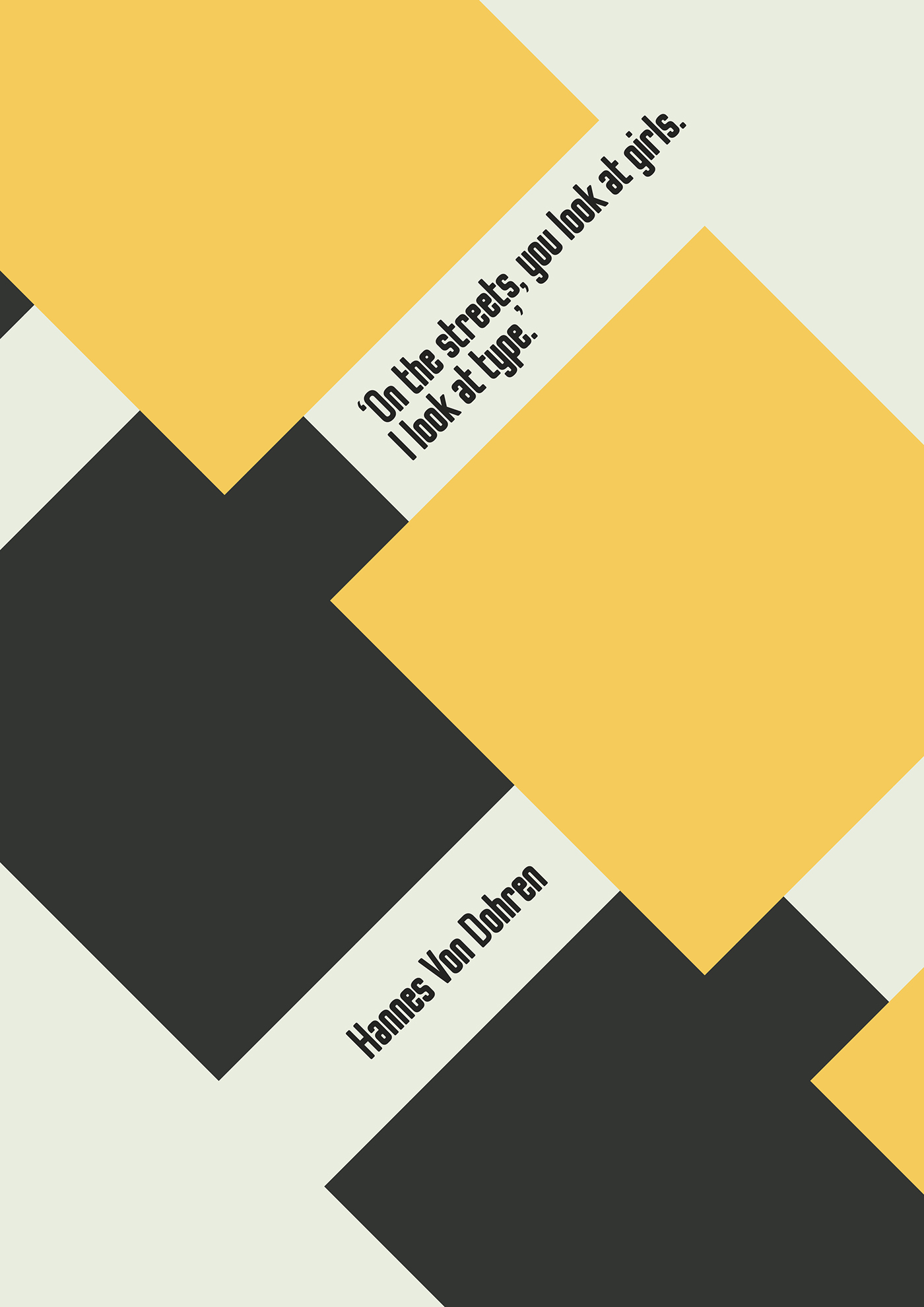
Neutro Grotesk Typeface
Hello world! I’m happy to introduce you to a new sans serif typeface. I believe it will please you. Introducing Neutro Grotesk Typeface! Neutro Grotesk designed by Paul Simpson. Neutro Grotesk is a condensed, sans serif typeface inspired by the Merz logotype of the 1920s. The logotype, created by Russian artist El Lissitzky for German Dadaist Kurt Schwitters, features narrow lettering, a uniform weight, and tight spacing. What started as a homage to this iconic logotype, Neutro Grotesk has evolved into a style of it’s own, becoming a mix of modernist functionality, post-modern aesthetic, and a touch of my own personal flair. This typeface features 96 characters, covering upper-case, lower-case, number, punctuation, and symbol characters; this typeface is also designed as a display-face, and should be used at a 24 point font size or greater for maximum legibility.